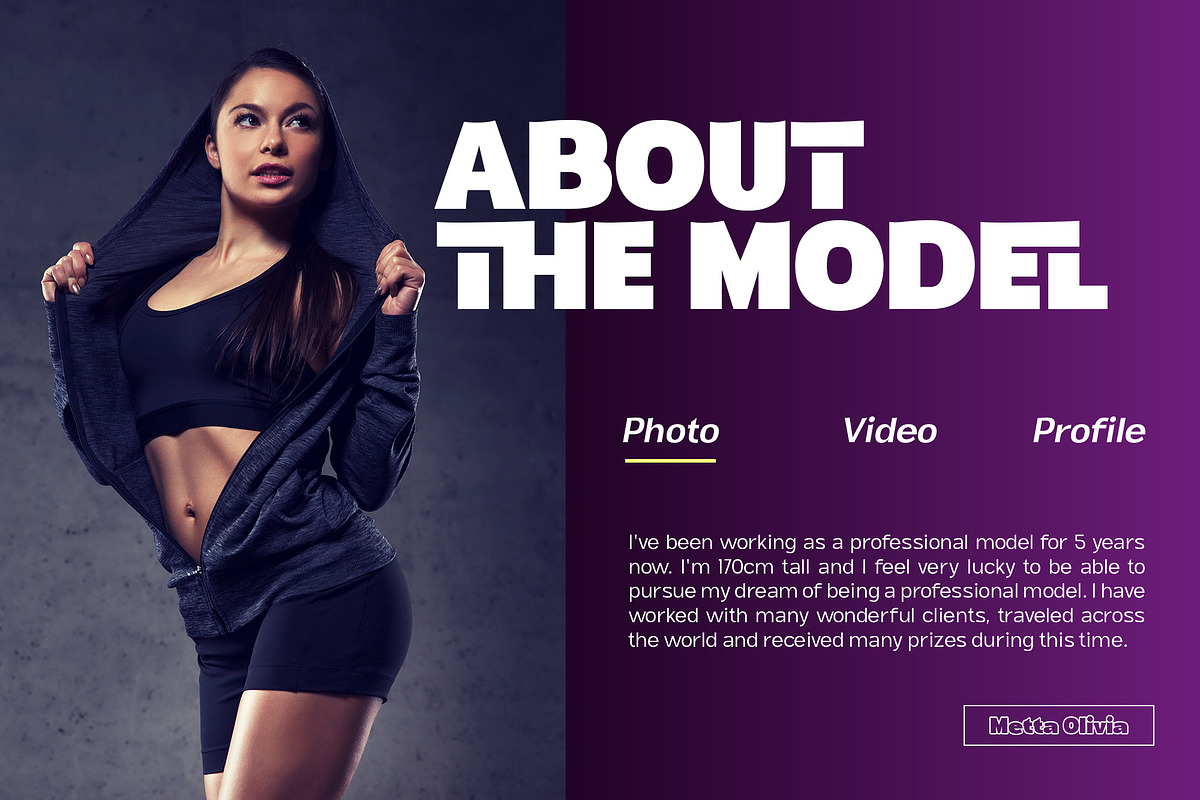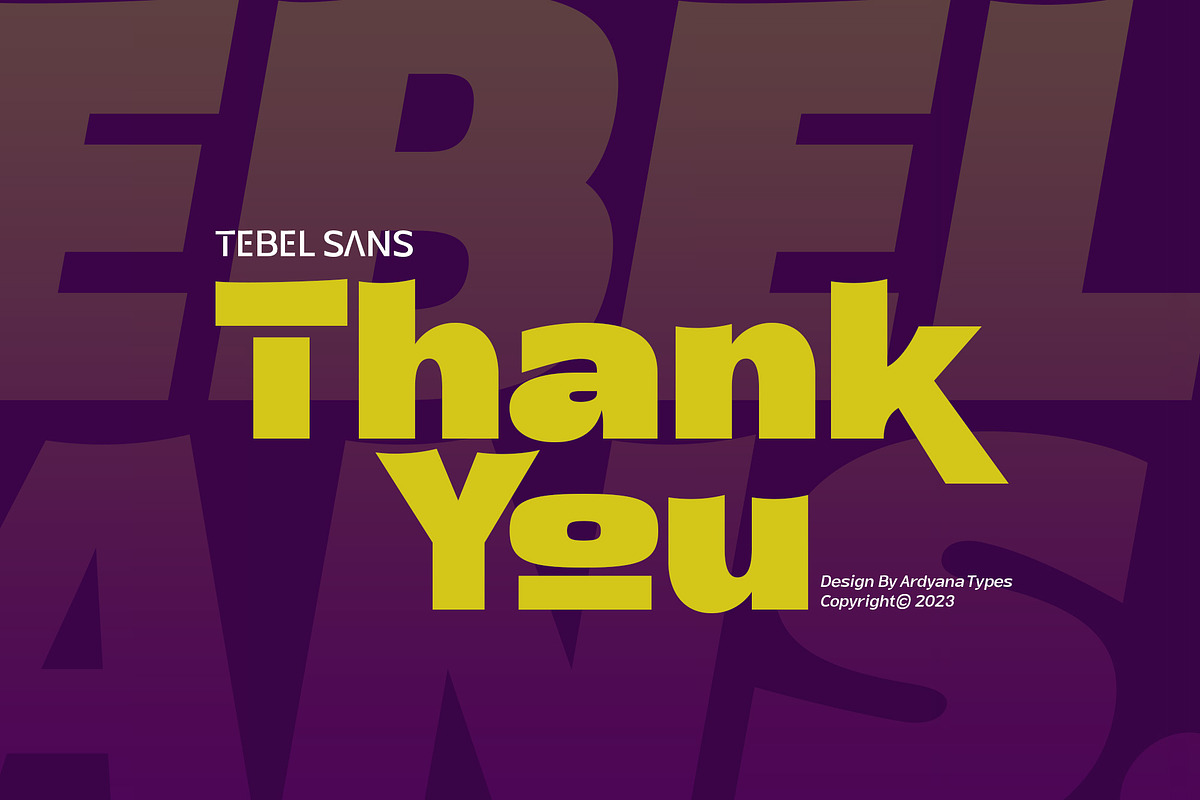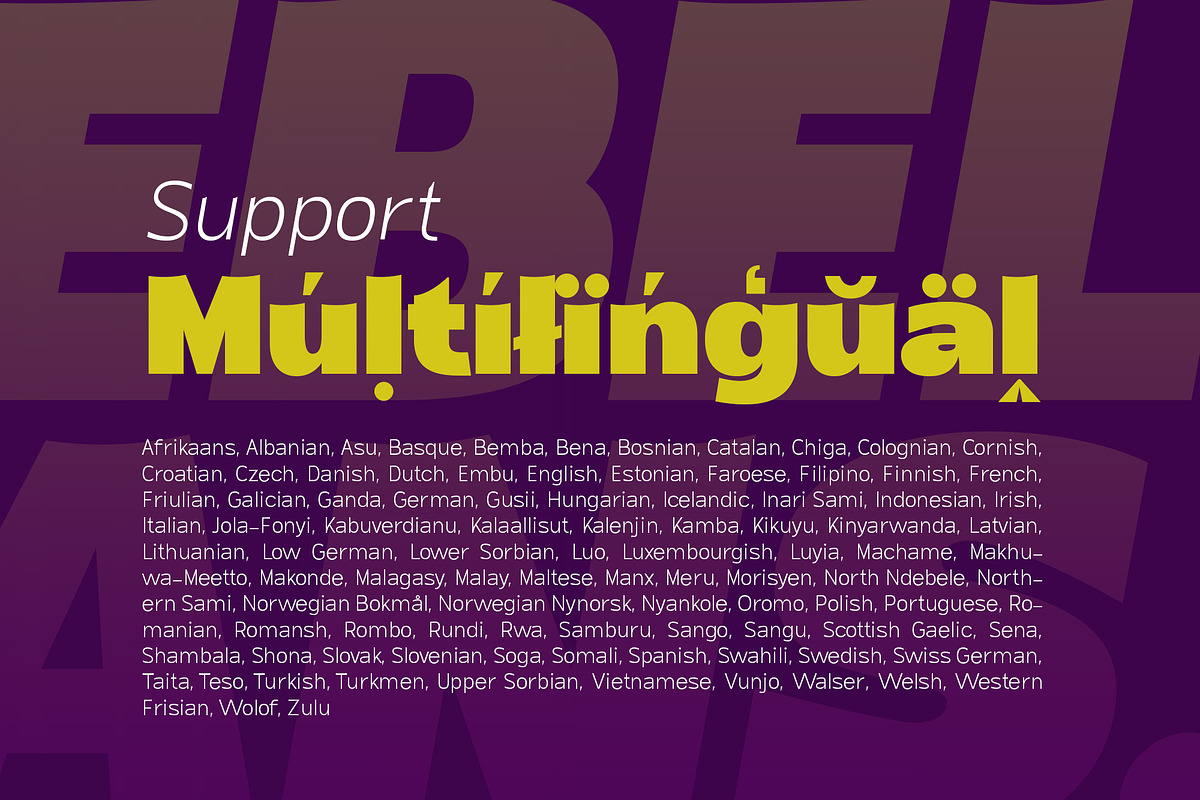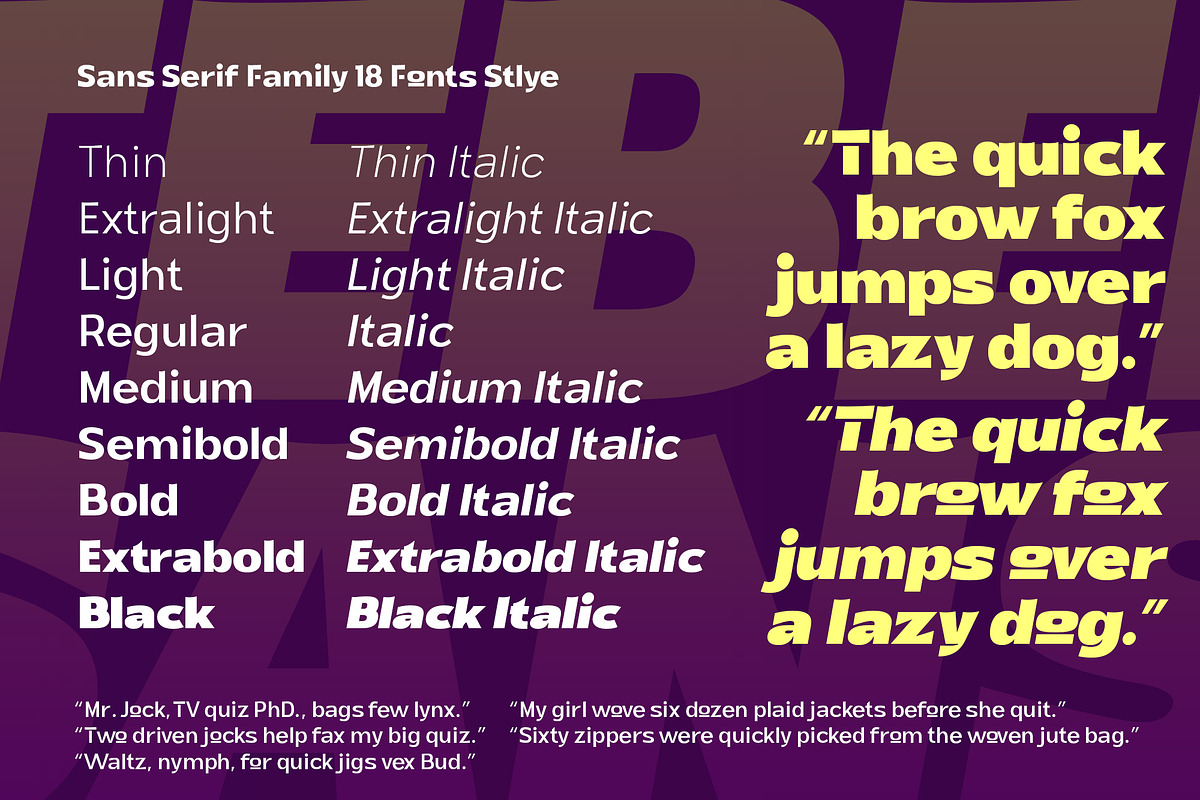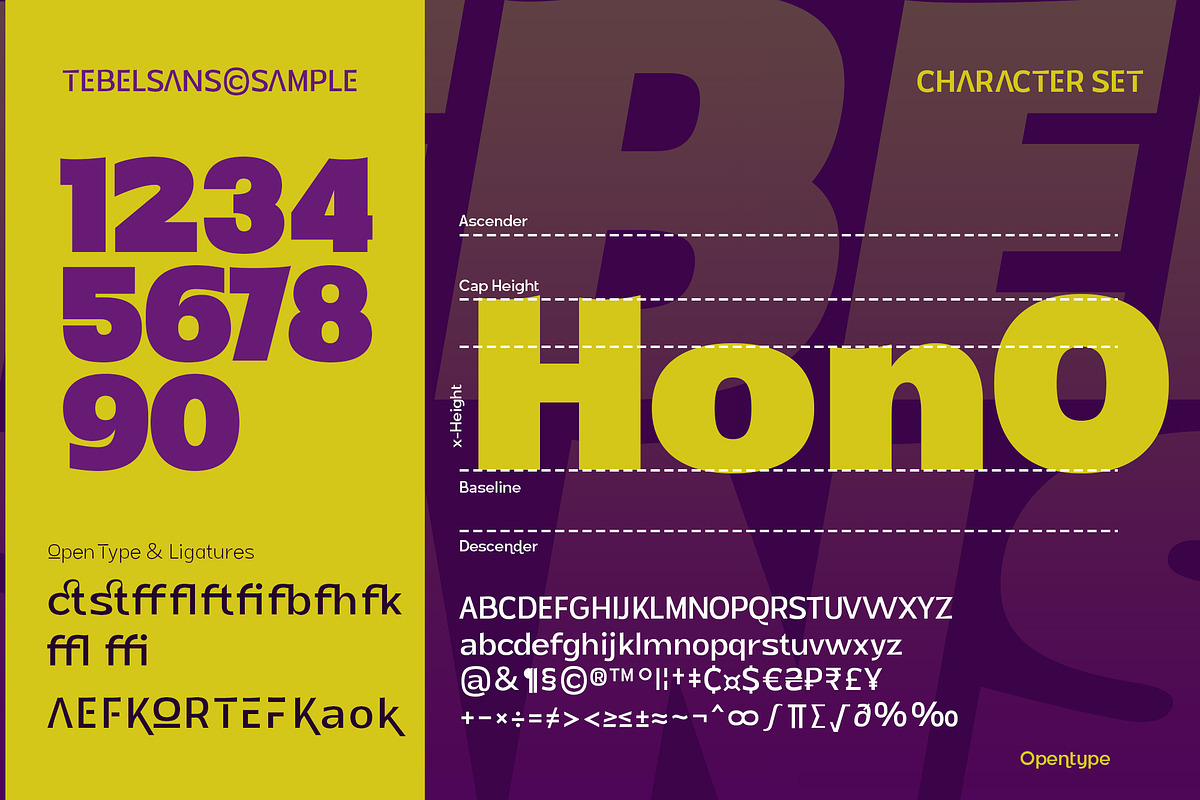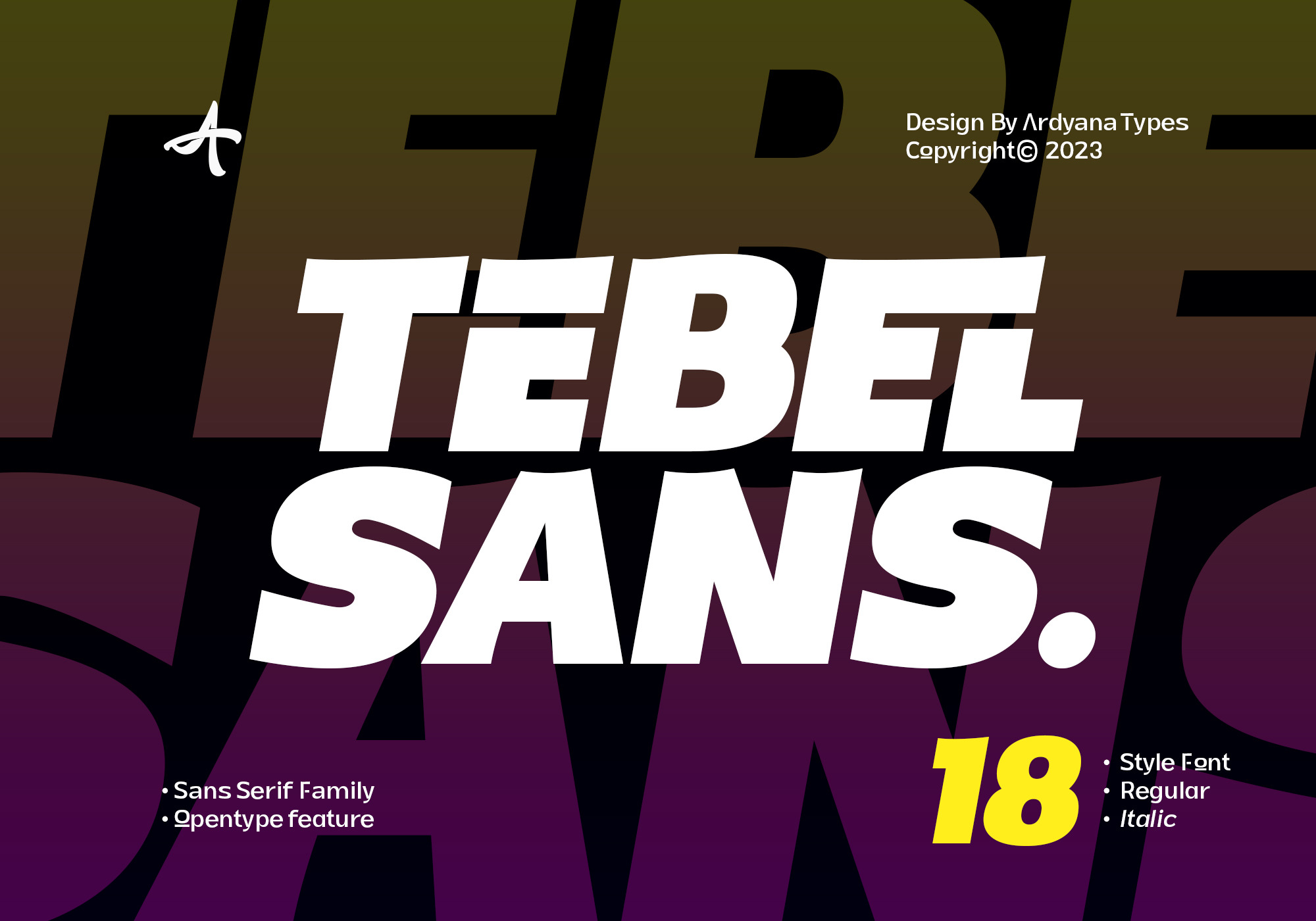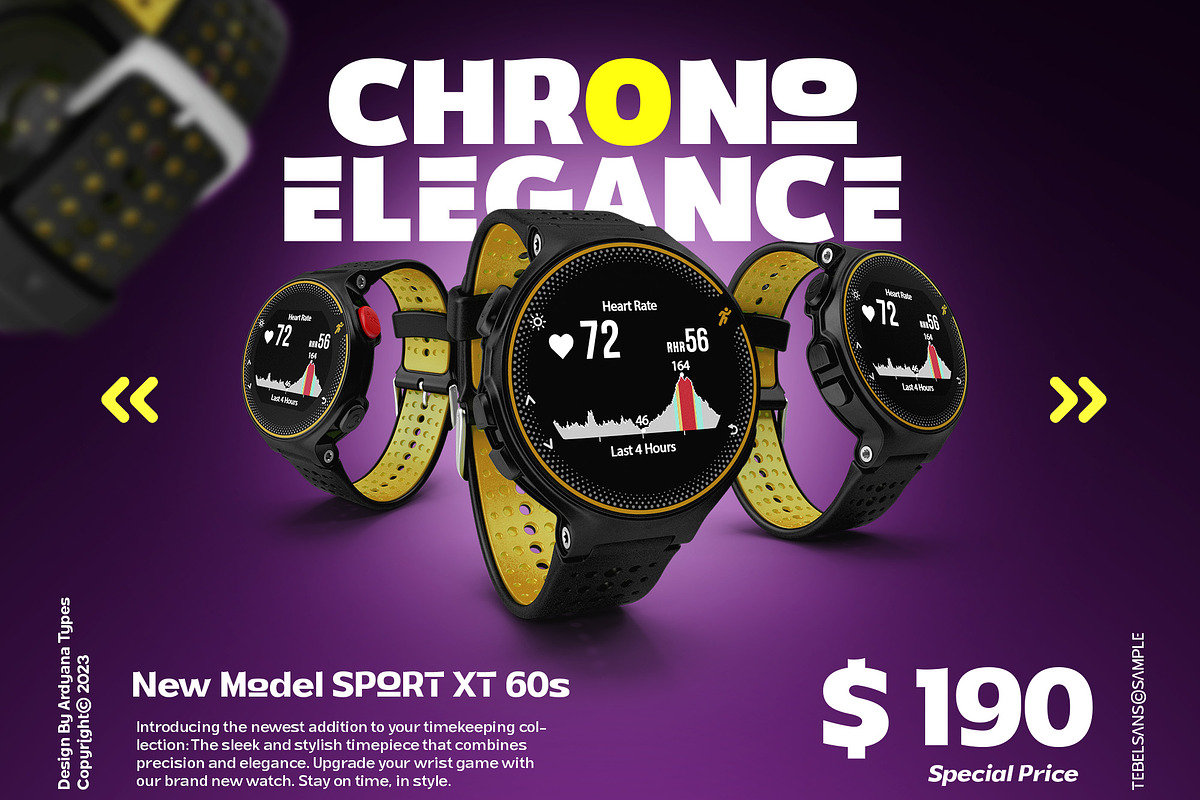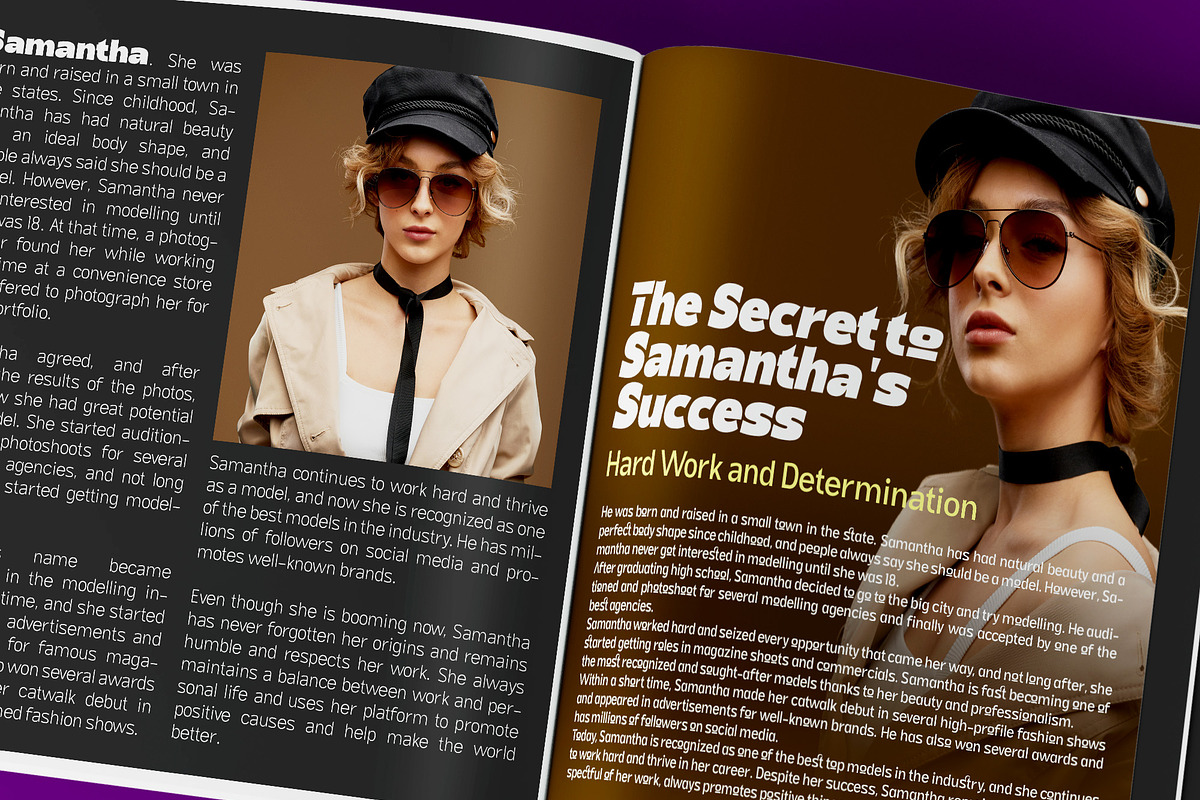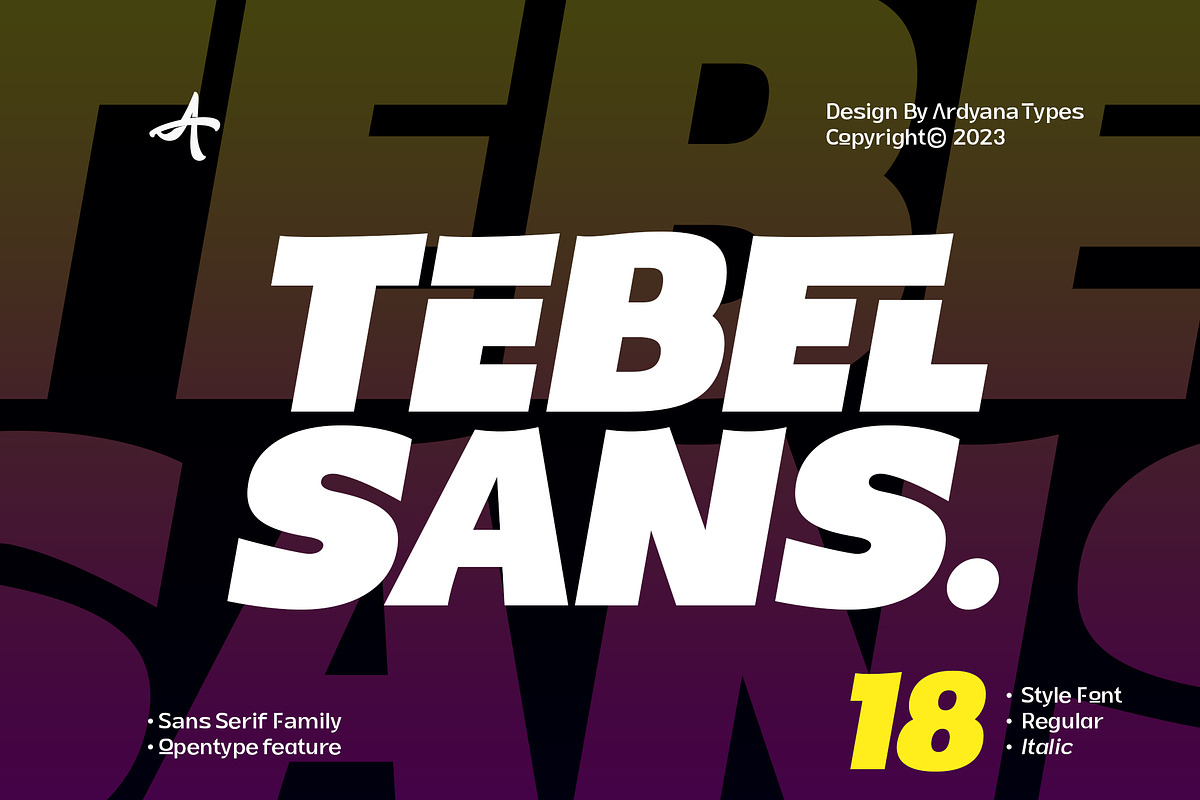
Tebel Sans - Sans Serif Font Family
Tebel Sans is a modern, ultra-bold sans-serif font perfect for all kinds of designs. With nine different thickness variations and two different typefaces (regular and italic), this font is the ideal choice for your designs. Its unique thickness makes your design look like a bold and elegant title. It is also a practical body text, with a large selection of different font families available in Opentype features such as multilingual ligature. Alternative fonts make it even more attractive and valuable for various graphic designs. Tebel Sans has a uniqueness that makes your designs look more powerful and modern.
Languages Support :Afrikaans, Albanian, Asturian, Asu, Azerbaijani, Basque, Bemba, Bena, Bosnian, Breton, Catalan, Chiga, Colognian, Cornish, Croatian, Czech, Danish, Dutch, Embu, English, Esperanto, Estonian, Faroese, Filipino, Finnish, French, Friulian, Galician, German, Gusii, Hungarian, Icelandic, Igbo, Indonesian, Irish, Italian, Kabuverdianu, Kalaallisut, Kalenjin, Kamba, Kikuyu, Kinyarwanda, Latvian, Lithuanian, Low German, Lower Sorbian, Luo, Luxembourgish, Luyia, Machame, Makhuwa-Meetto, Makonde, Malagasy, Malay, Maltese, Manx, Meru, Morisyen, North Ndebele, Norwegian Bokmål, Norwegian Nynorsk, Nyankole, Oromo, Polish, Portuguese, Quechua, Romanian, Romansh, Rombo, Rundi, Rwa, Samburu, Sango, Sangu, Scottish Gaelic, Sena, Shambala, Shona, Slovak, Slovenian, Soga, Somali, Spanish, Swahili, Swedish, Swiss German, Taita, Teso, Turkish, Turkmen, Upper Sorbian, Vietnamese, Vunjo, Walser, Welsh, Western Frisian, Yoruba, Zulu